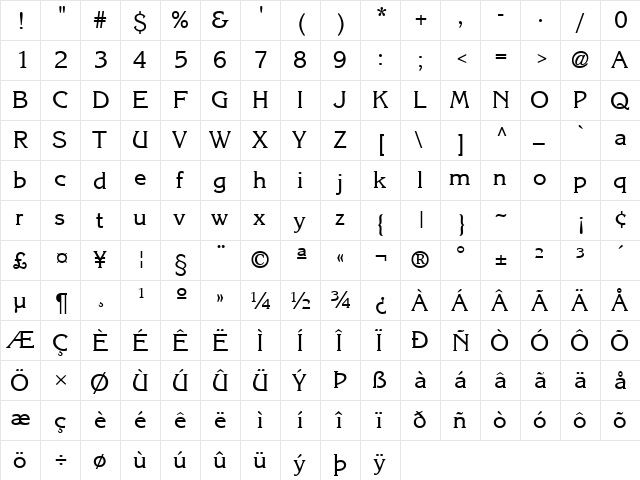
KolibriDB Normal
Design Context for KolibriDB Typeface
KolibriDB offers clean, dependable letterforms without strong stylistic allegiance, making it a practical choice for designers who need flexibility.
Pro Tip: Pair KolibriDB with a font of contrasting weight or personality to build a more expressive typographic hierarchy.